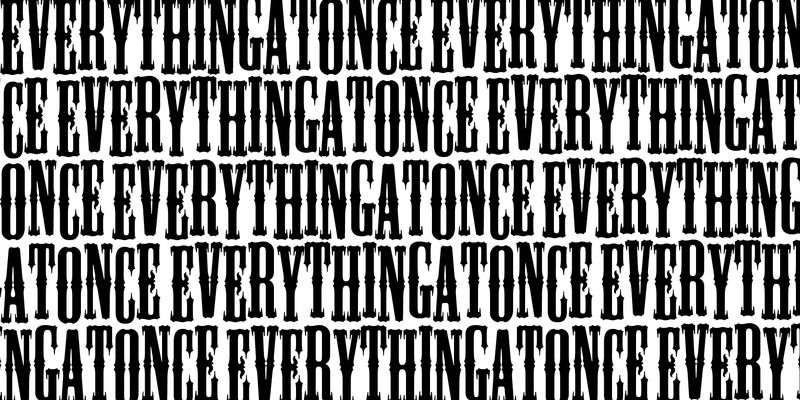
Mesquite specimen
Mesquite
Mesquite is an Adobe Originals typeface designed by Joy Redick for Adobe Systems in 1990, as part of the Adobe Wood Type series.